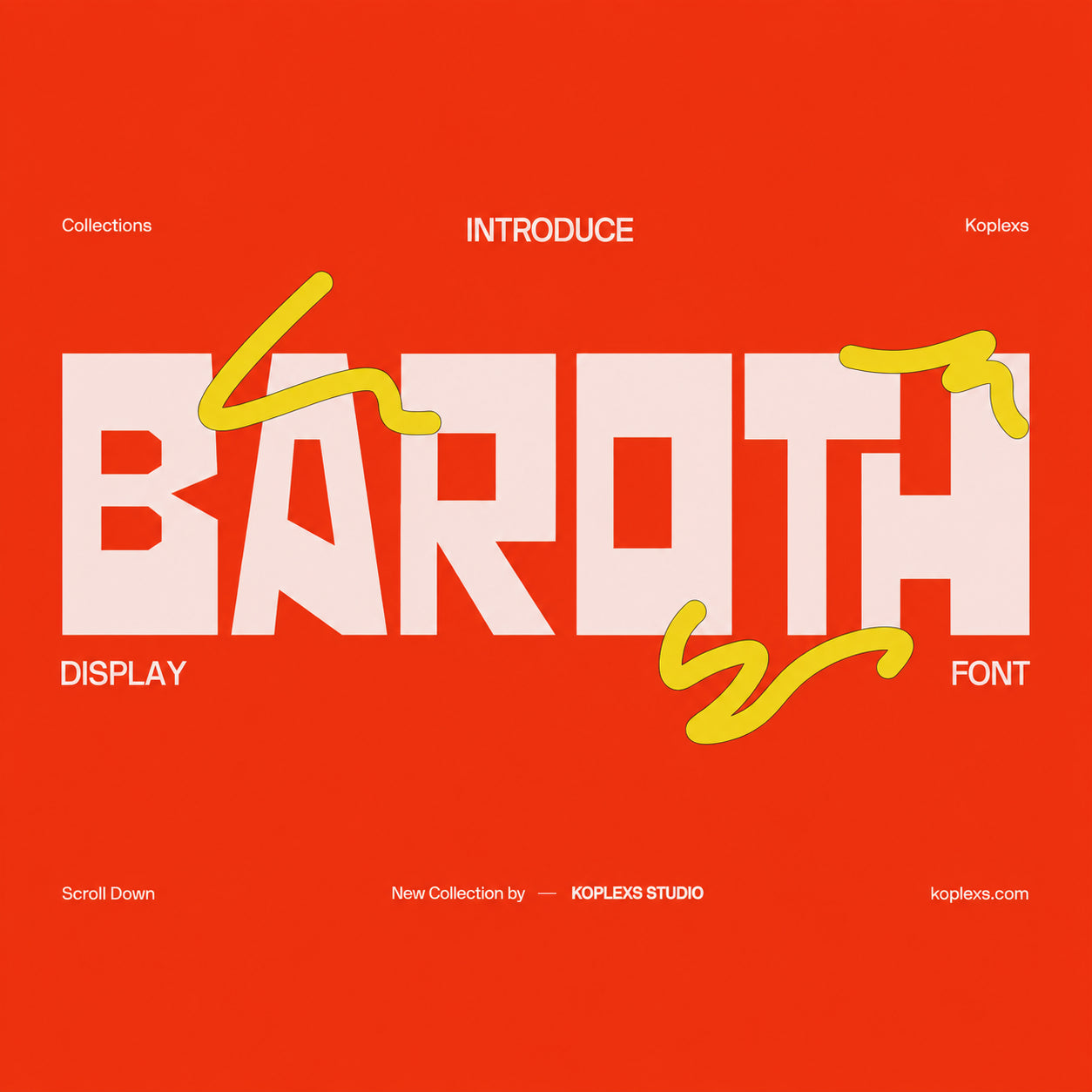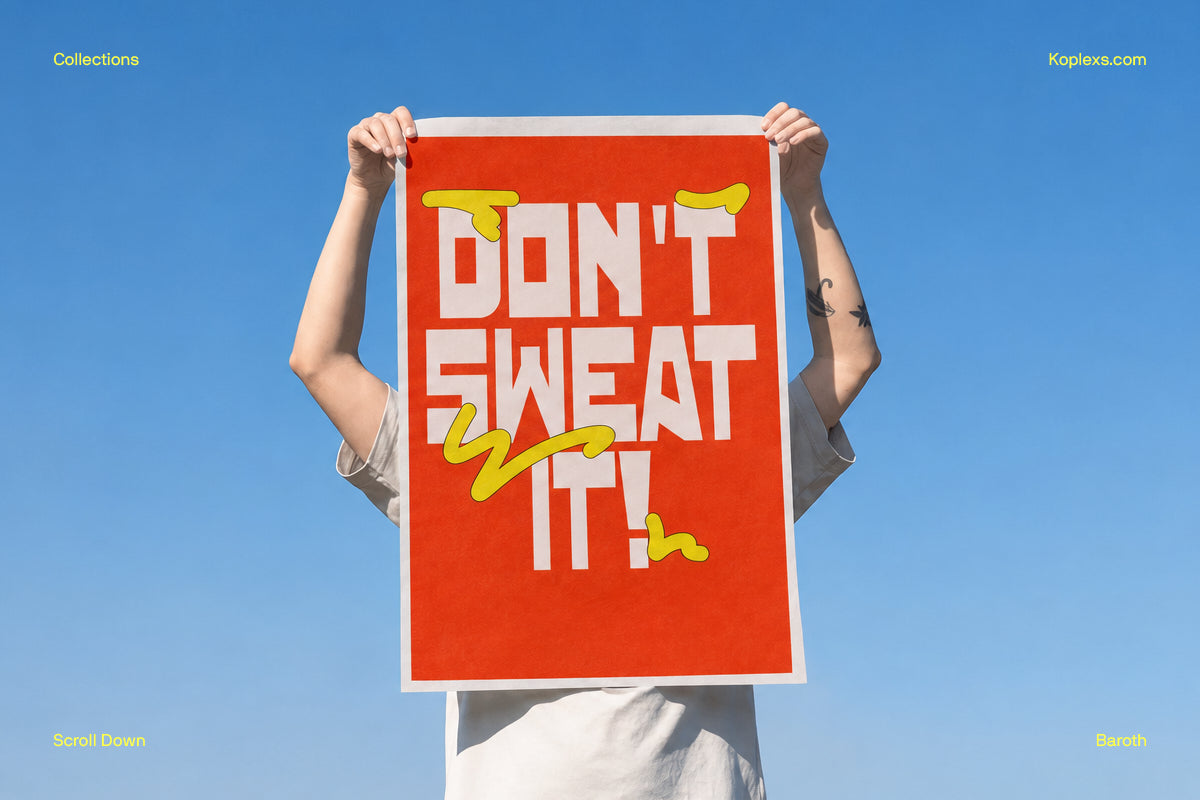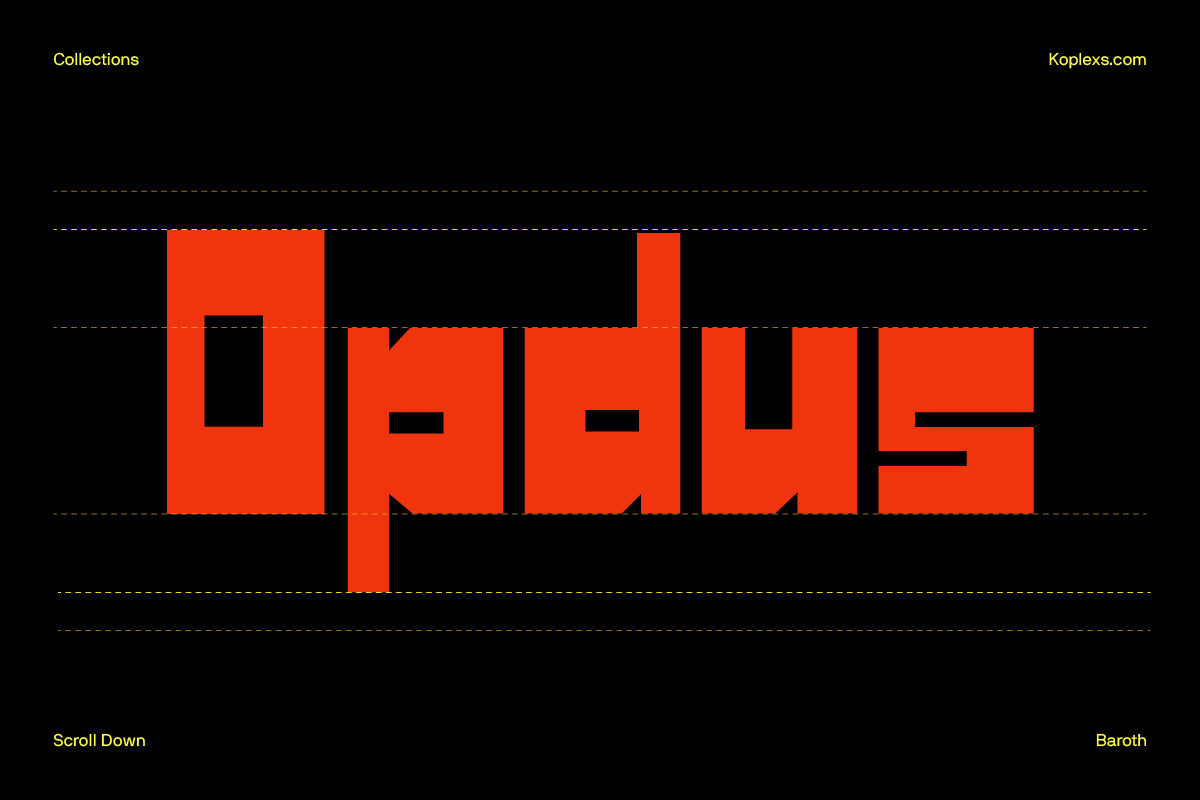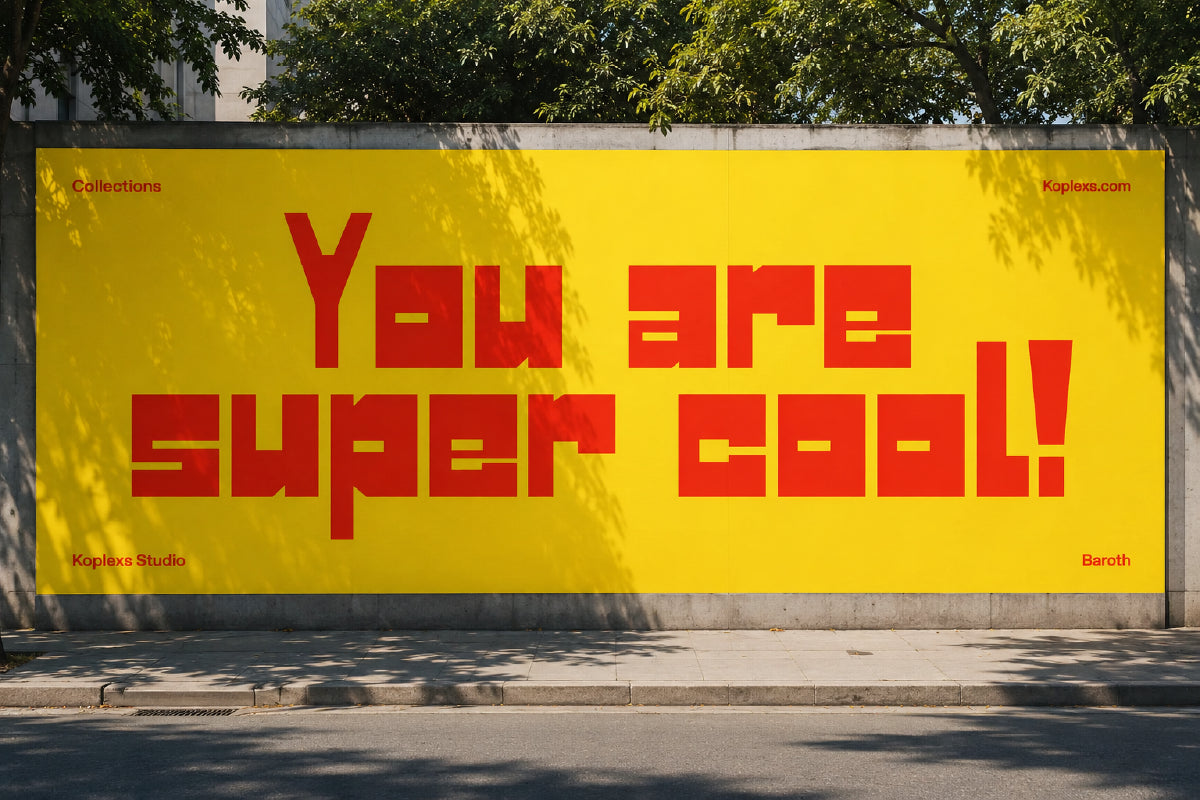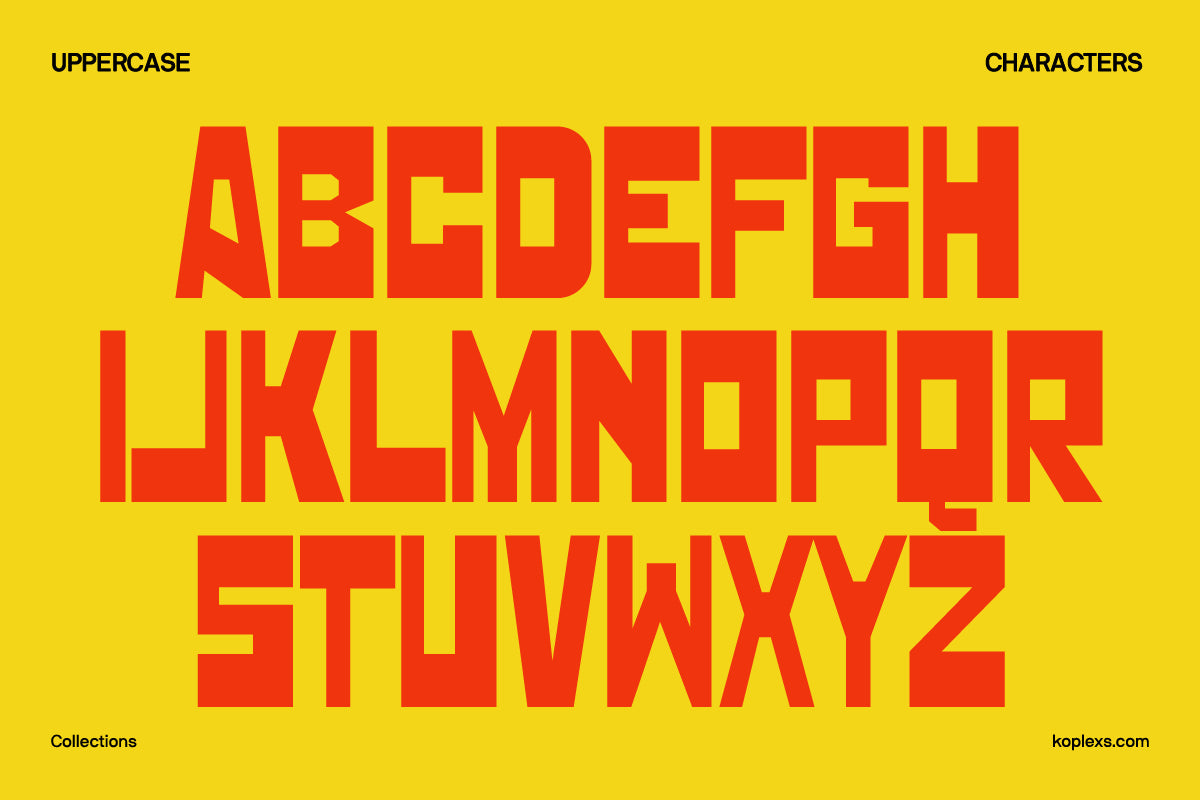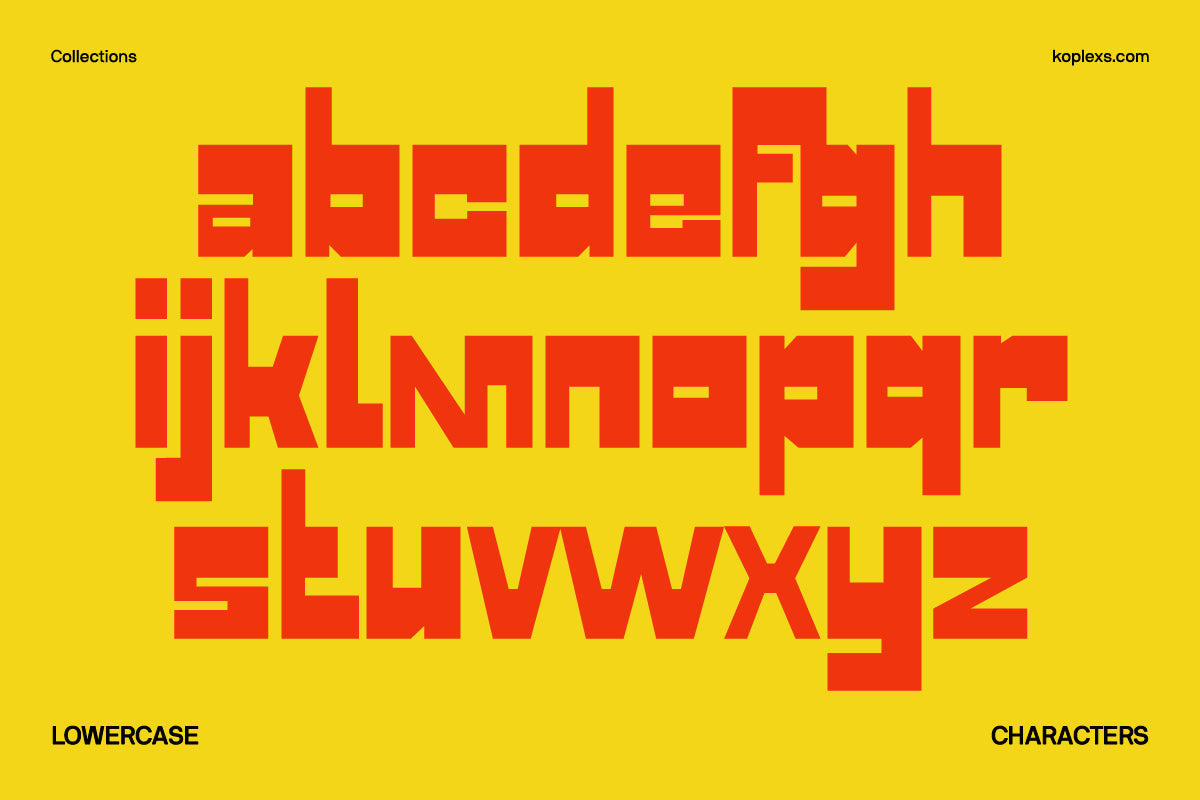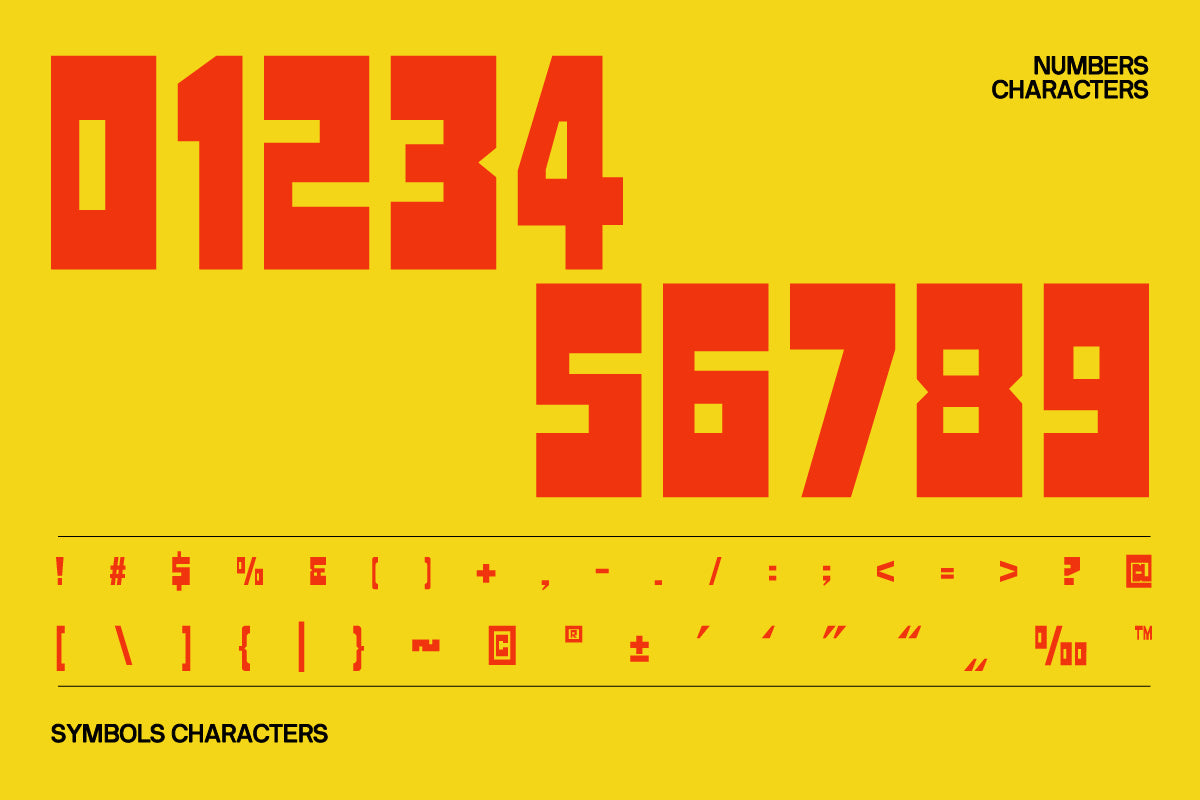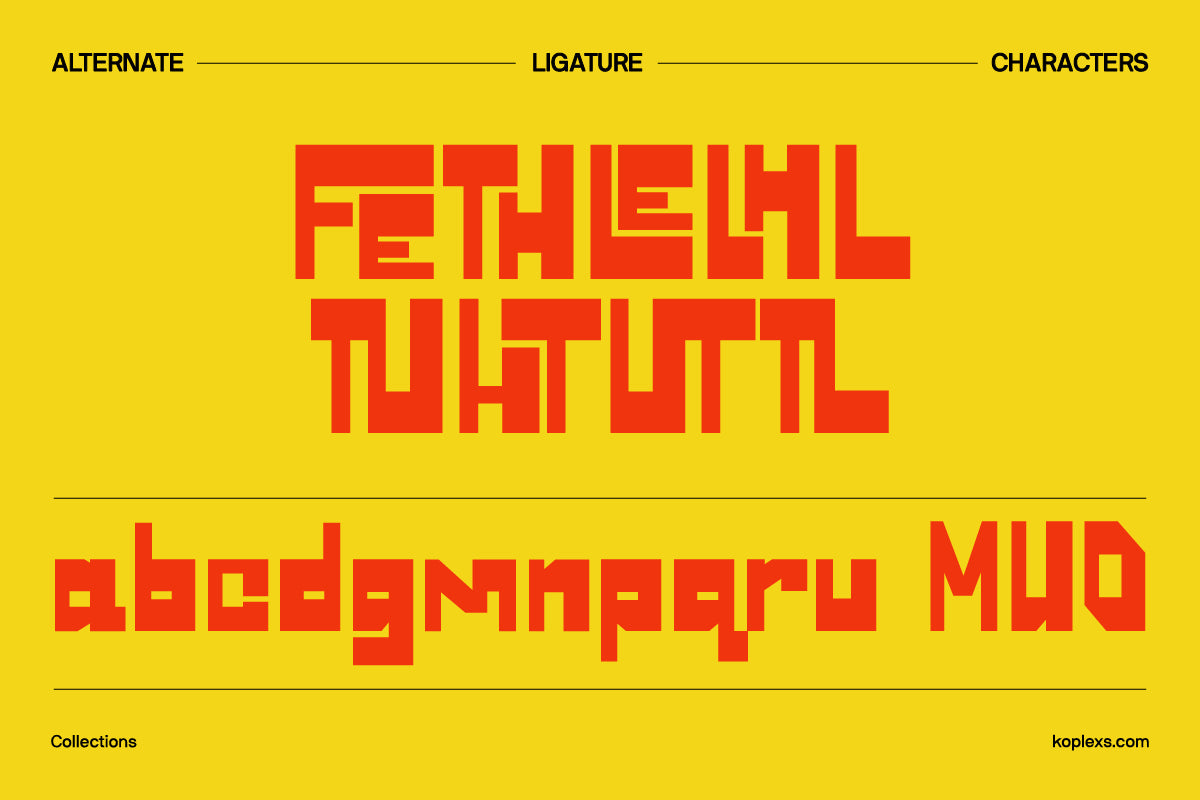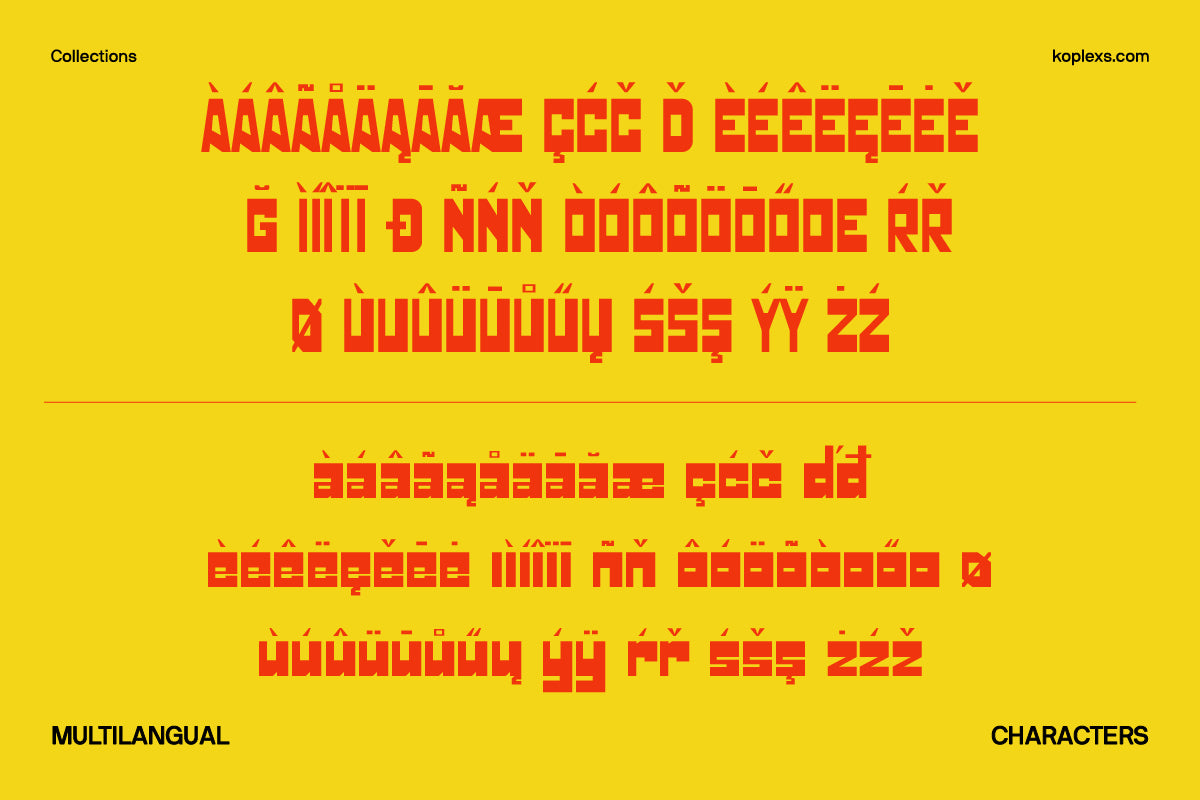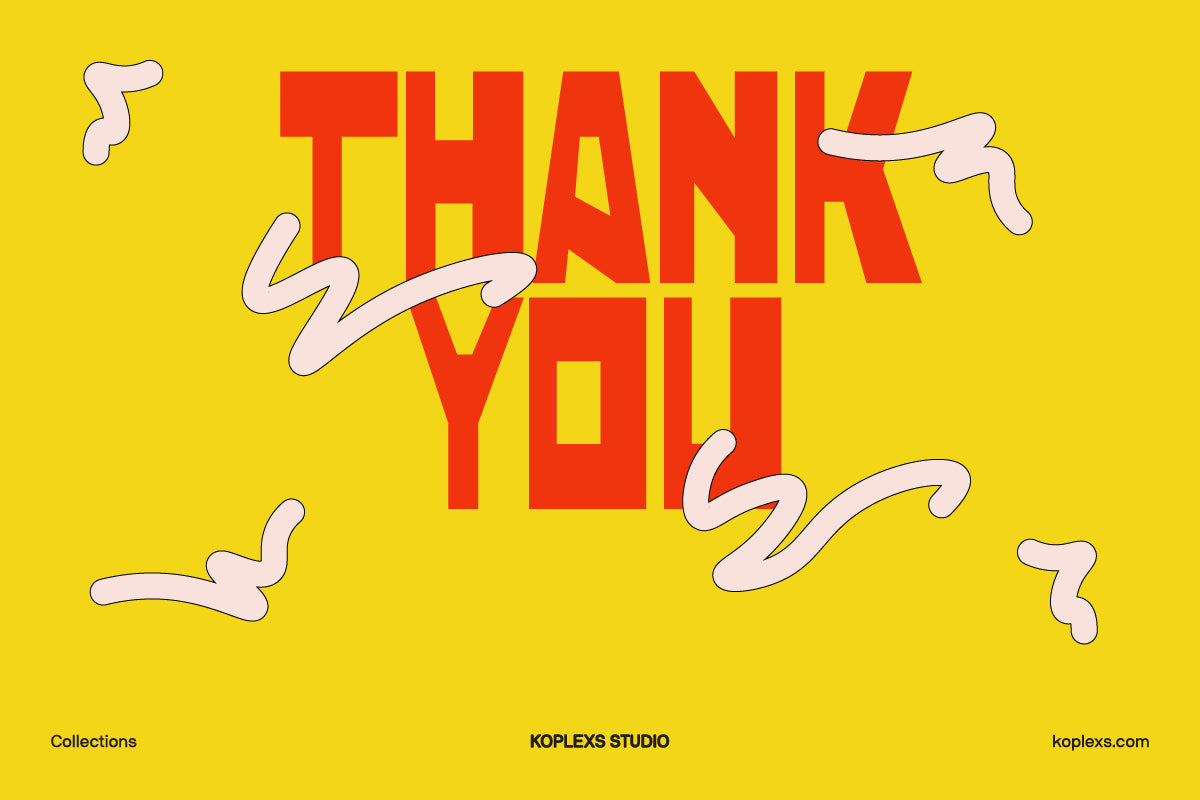
Baroth Font
Baroth - Bold Condensed Display Typeface
Meet Baroth, a bold display typeface made for designs that deserve attention. With its chunky letterforms, condensed proportions, and strong geometric personality, Baroth brings a confident and energetic look to any creative project.
Its heavy shapes make it especially effective for large typography, giving headlines and short phrases a strong visual presence without feeling overly complicated. Baroth can feel modern, playful, urban, or slightly brutalist depending on how you style it.
Perfect for:
Poster and flyer design
Branding and visual identity
Logo design
Packaging
Bold headlines
Streetwear and apparel
Editorial layouts
Album covers
Advertising campaigns
Social media graphics
Merchandise
Fashion projects
Website hero sections
Event promotions
Pair Baroth with a clean sans serif for a balanced contemporary layout, or combine it with a classic serif to create a bold contrast.
Whether you're building a striking poster, fashion campaign, packaging concept, or statement headline, Baroth helps turn simple words into memorable visual elements.
Baroth Font is a bold condensed display typeface featuring chunky letterforms and strong geometric shapes, designed for impactful typography. It is suitable for various design applications, including branding, logo design, and large headlines, and is compatible with clean sans serif or classic serif fonts for diverse layout options.